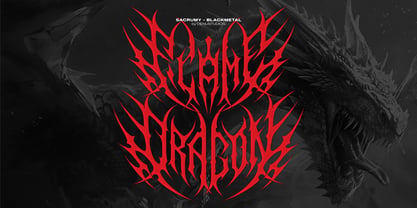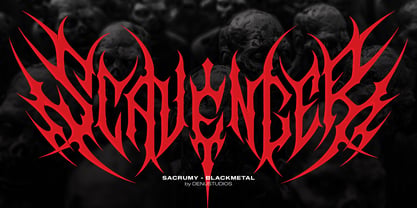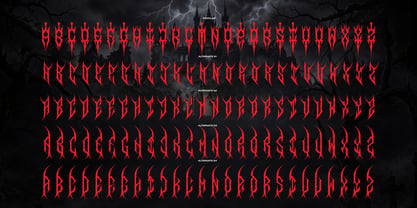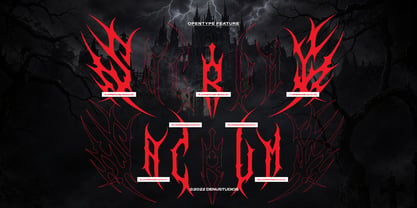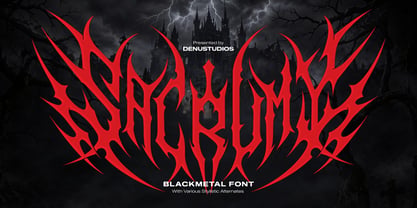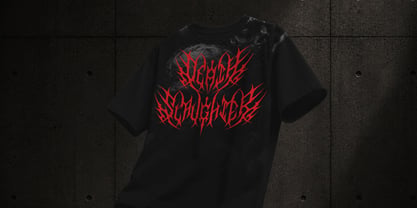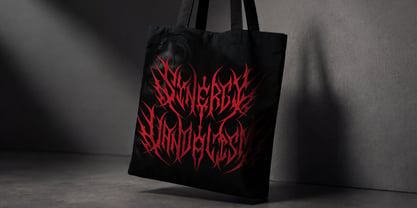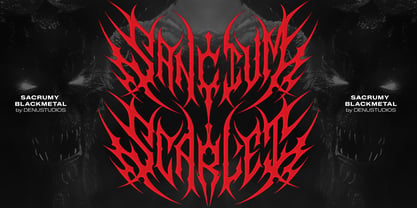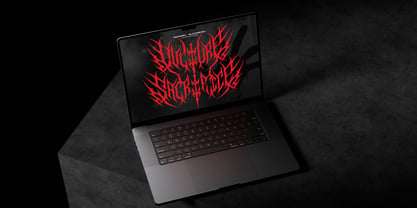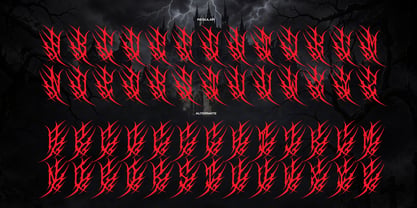
Sacrumy
The Sacrumy Font Family was designed by Dede Nugraha and published by Denustudio. Sacrumy contains 1 styles. More about this family
Sacrumy | Black Metal Font, from Denustudios, suitable for any projects such as: logos, branding projects, homeware designs, product packaging, mugs, quotes, posters, shopping bags, t-shirts, book covers, name card, invitation cards, greeting cards, label, photography, watermark, special events, and all your other lovely projects that need Black Metal a taste.